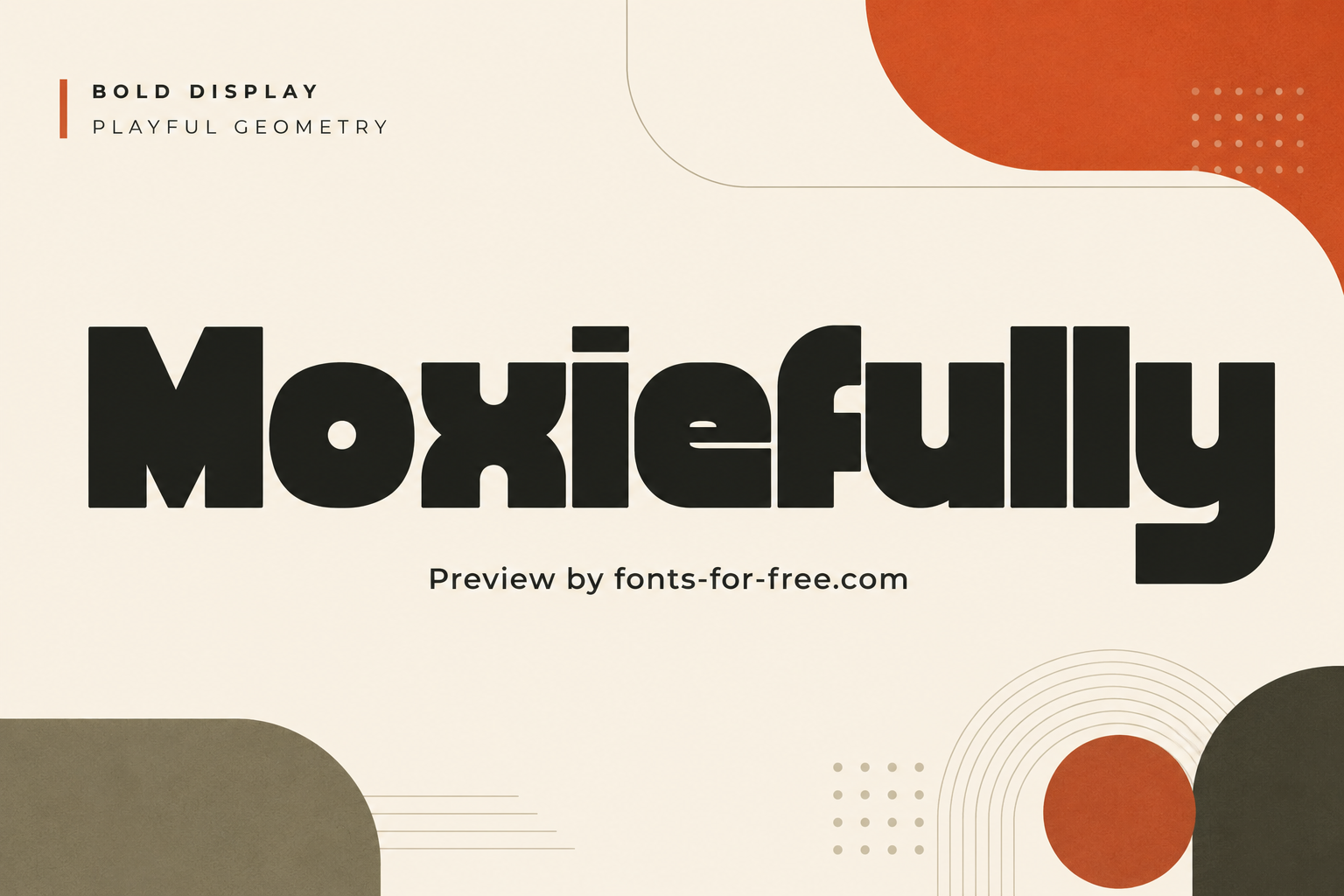
Moxiefully is a bold geometric display sans serif created by SwedishTypeCorporation and licensed under the SIL Open Font License 1.1. Its letters use very heavy, low-contrast strokes with rounded corners, compact spacing, and simplified shapes that give the font a playful, modular rhythm. The wide counters, chunky terminals, and unusual details in forms such as the x, f, and y add a friendly decorative tone while keeping short words clear at large sizes. Moxiefully is most readable in display settings, including posters, packaging, logo concepts, children’s themes, game graphics, café branding, and social media headings.